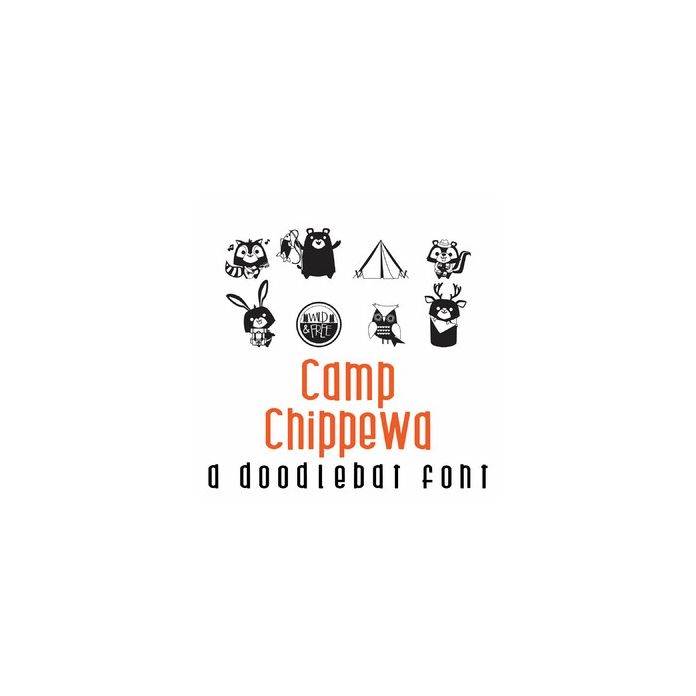
This adorable full-color doodlebat font features beautiful bird families and cozy home items. Perfect for cards, crafts, gifts, decor, scrapbook pages, planner stickers, and more!